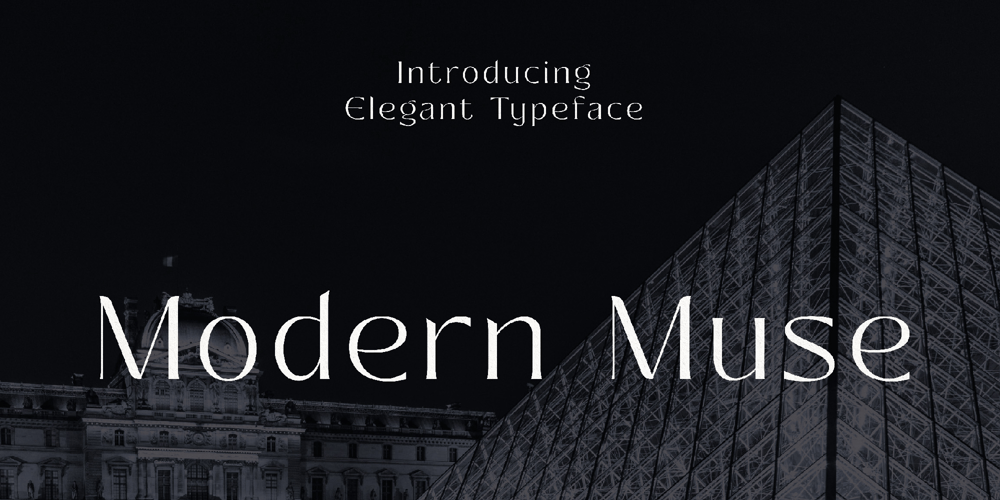
Modern Muse Font Family was designed by Igor Ovsyannykov and published by Hipfonts. Modern Muse contains 1 styles and family package options. Introducing Modern Muse, the epitome of refined elegance in the world of typography. This exquisite typeface is a visual symphony that harmonizes luxury and sophistication, designed to elevate your creative projects to unprecedented levels of class and style.With Modern Muse, your designs transcend mere visuals and become timeless works of art. Each meticulously crafted character exudes an air of opulence, making it the perfect choice for high-end branding, invitations, packaging, or any project where luxury is a non-negotiable requirement. The fluidity of its lines and the perfect balance of its curves embody the essence of modern beauty, effortlessly capturing attention and leaving a lasting impression.Elevate your design game and add a touch of opulent charm to your work with Modern Muse – where elegance becomes a muse for your creative genius. Don’t wait; let your designs speak the language of luxury and refinement with Modern Muse today.